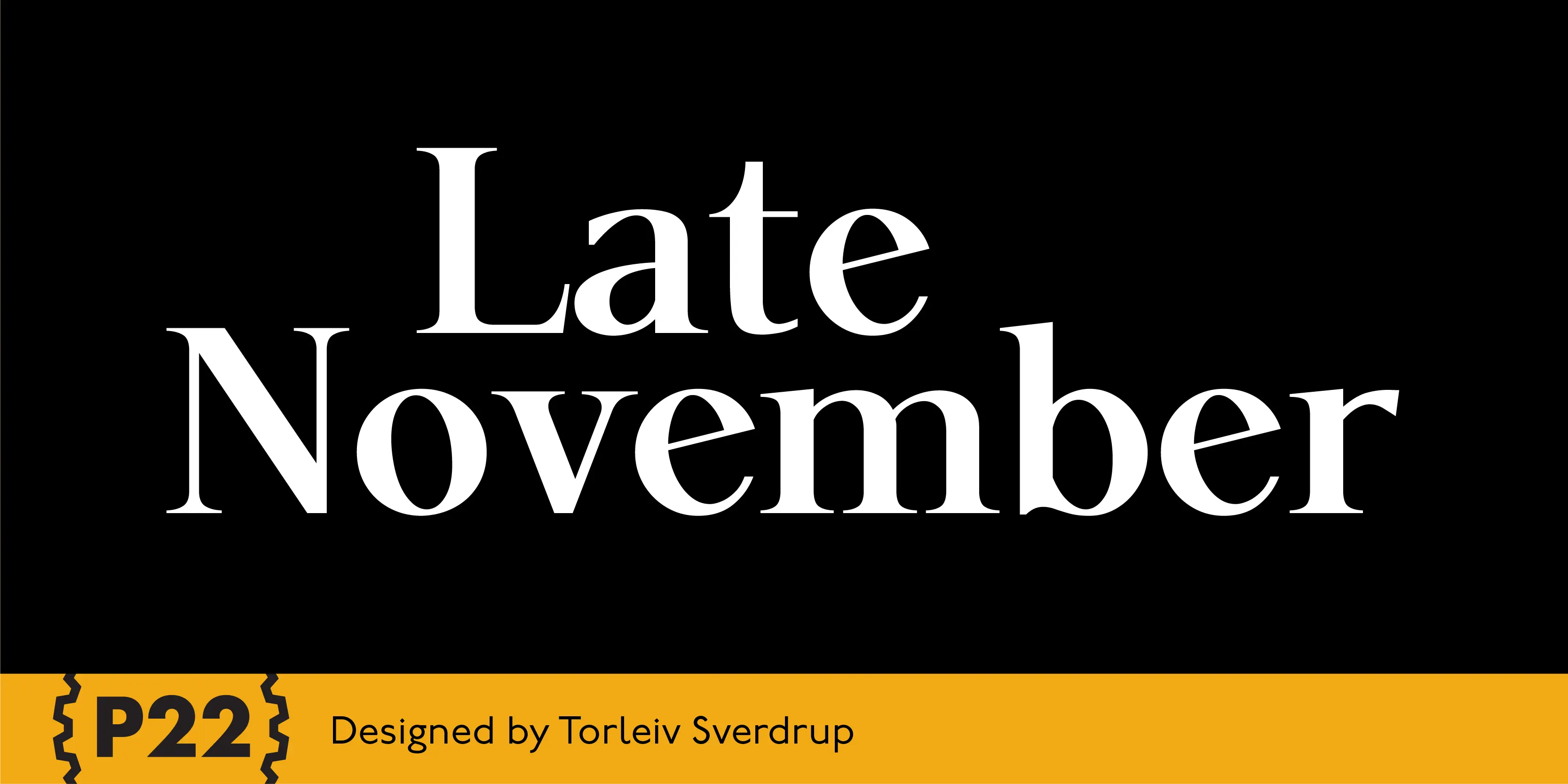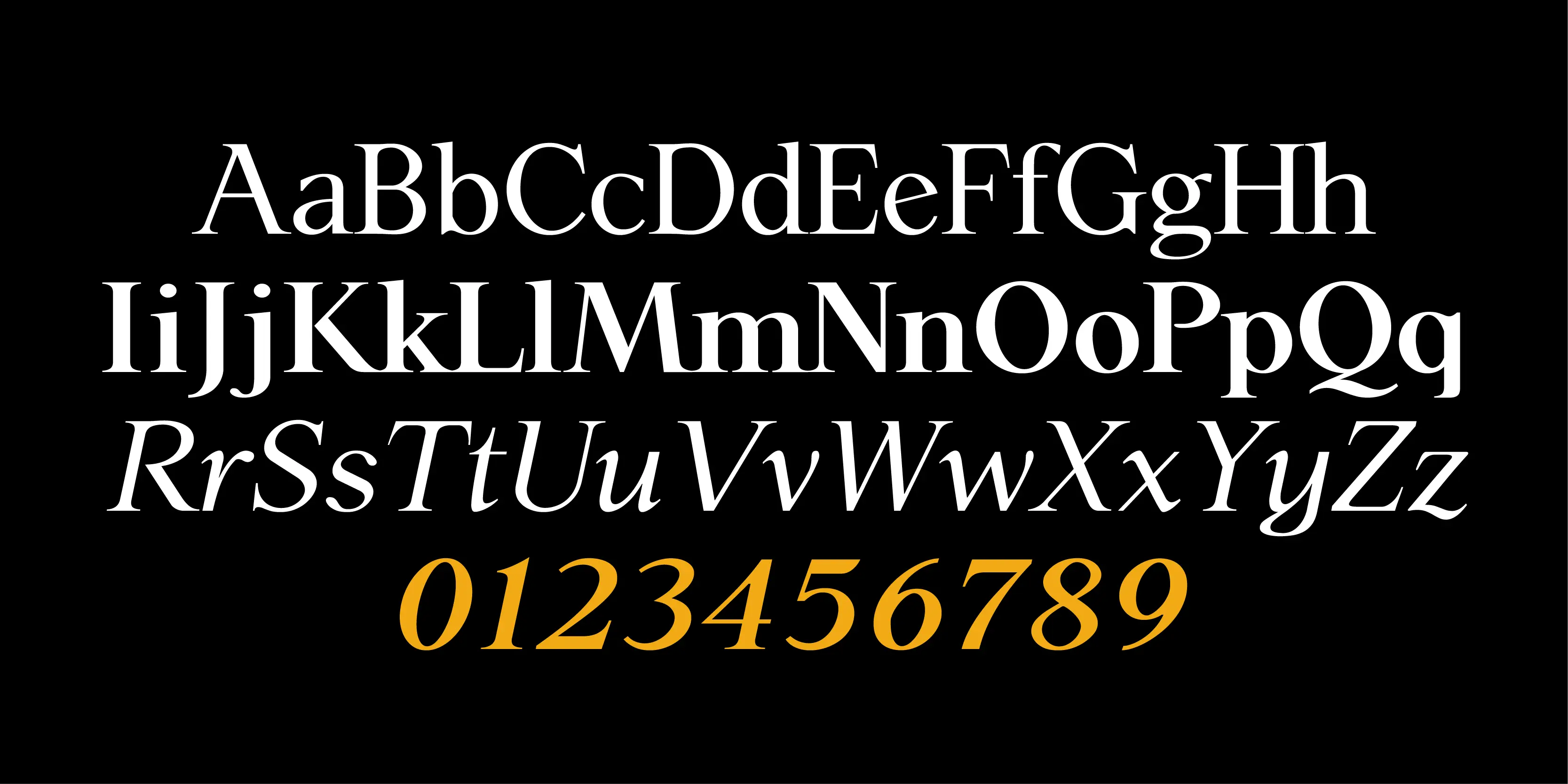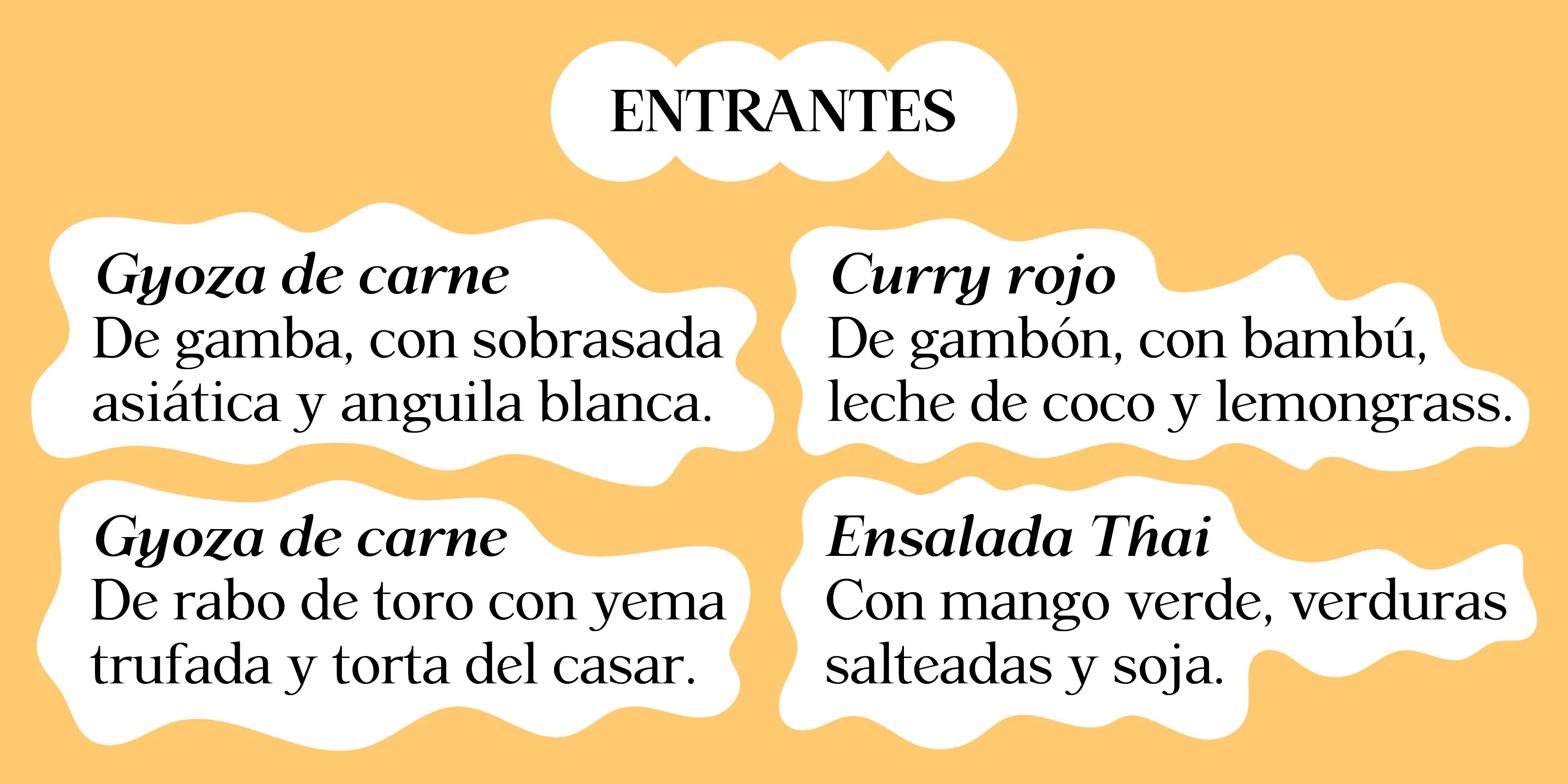
Late November Font Family
Late November
P22 Late November is a transitional Antiqua-inspired type design great for text and display uses. The name is derived from the dark, November night in which the design of the font began. The Pro version features fractions, ligatures and full Central European support.
• Chinese Pinyin
• Fractions
• Historical Ligatures
• Ordinal Numerals
• Superscript